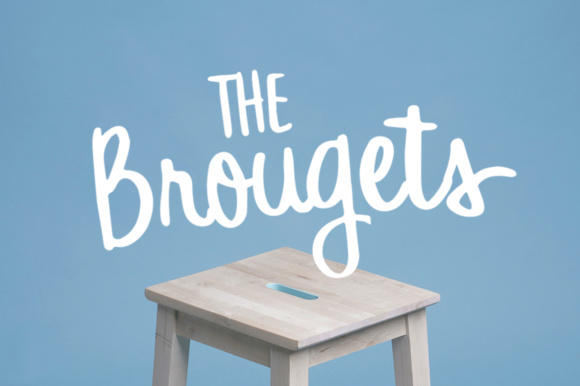
Brougets Script Font: A Hand-Lettered Brush Script with Personality
The Brougets script font is a unique and charming typeface that has been gaining popularity among designers and crafters. This hand-lettered brush script boasts a strong personality, making it perfect for projects that require a personal touch. With its perfectly imperfect form, Brougets exudes a fun and playful vibe that’s sure to capture the attention of your audience.
What is Brougets Script Font?
Brougets is a carefully crafted script font that mimics the look of hand-lettered brush writing. Each letter is meticulously designed to resemble the imperfect strokes of a brush, giving the font a delightfully human feel. The result is a typeface that’s both elegant and approachable, making it suitable for a wide range of applications.
Key Features of Brougets Script Font
- Hand-lettered brush script: Brougets is a genuine hand-lettered script font, created with love and care to ensure that each letter has a unique character.
- Perfectly imperfect form: The font’s imperfect strokes and subtle flaws give it a charming, handmade feel that’s perfect for adding a personal touch to your projects.
- Strong personality: Brougets has a bold and confident personality that’s sure to make your designs stand out from the crowd.
- Fun and playful vibe: The font’s playful imperfections and energetic feel make it ideal for projects that require a lighthearted and creative approach.
Uses for Brougets Script Font
Brougets is a versatile font that can be used in a variety of applications, including:
- Branding and packaging: Add a personal touch to your brand’s packaging and marketing materials with Brougets’ unique and eye-catching script.
- Stationery and invitations: Create beautiful and distinctive stationery, invitations, and greeting cards with Brougets’ elegant and playful script.
- Digital design: Use Brougets to add a touch of personality to your website, social media graphics, or digital ads.
- Crafting and DIY projects: Brougets is perfect for crafters and DIY enthusiasts who want to add a personal touch to their projects, such as handmade cards, scrapbooking, or journaling.
Why Choose Brougets Script Font?
With so many script fonts available, why choose Brougets? Here are just a few reasons:
- Unique and distinctive: Brougets has a one-of-a-kind personality that will set your designs apart from the rest.
- Elegant and approachable: The font’s elegant strokes and playful imperfections make it both sophisticated and relatable.
- Easy to read: Despite its handwritten nature, Brougets is surprisingly legible, making it suitable for body text and headlines.
- High-quality design: Brougets is carefully crafted with attention to detail, ensuring that your designs look professional and polished.
In conclusion, Brougets script font is a charming and versatile typeface that’s perfect for designers and crafters looking to add a personal touch to their projects. With its hand-lettered brush script, perfectly imperfect form, and strong personality, Brougets is sure to bring a smile to your audience’s face. Whether you’re working on branding, stationery, digital design, or crafting, Brougets is an excellent choice for anyone seeking a unique and eye-catching script font.